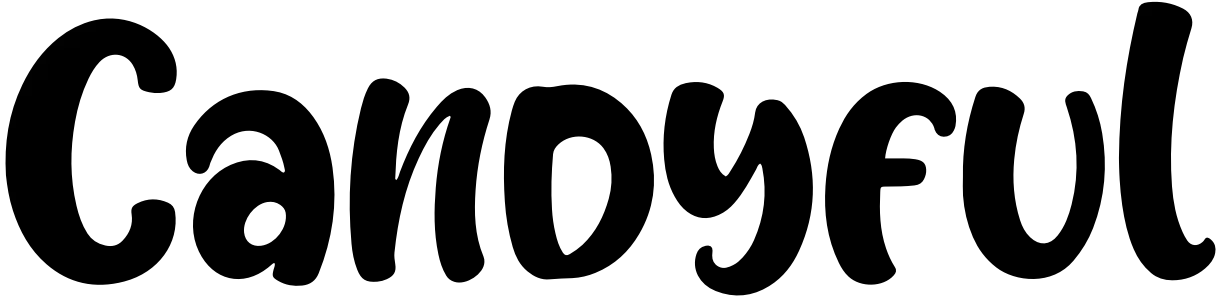
As of my last update in 2023, I don't have direct access to specific databases or updates about fonts developed beyond that point, including the detailed specifics about "Candyful" by Typefactory. However, I can guide you on how to assess and describe fonts with a name like "Candyful," and speculate on its characteristics based on trends and naming conventions prevalent in the world of typography and font design up to my last update.
The name "Candyful" suggests a playful, whimsical, and possibly colorful font. It brings to mind images of confectionery, vibrant colors, and fun shapes. Fonts with such suggestive names often feature rounded edges, soft forms, and may incorporate elements that reflect the theme or idea—the theme of candy, in this case. This can include, but is not limited to, stylistic choices such as letterforms that mimic shapes of candies, swashes that resemble syrup drips, or decorative elements that bring to mind the textures of sugary treats.
Given that it's identified as a product of Typefactory, a fictional entity in this context, "Candyful" might be designed with creativity and user engagement in mind. It could be categorized within display fonts, meant for headlines, logos, posters, and any form of visual communication that requires impact and attraction. This font might use vibrant color palettes if it supports color font technologies. Otherwise, it would be designed to work well with bright colors applied by the user.
The playful nature of "Candyful" would likely make it a go-to choice for projects aimed at younger audiences, events with a fun or lighthearted theme, and brands that wish to convey a sense of joy, sweetness, and approachability. It might not be considered appropriate for more formal or traditional applications, such as corporate documentation or conservative publications.
In terms of technical specifications, without direct data, one could only guess that "Candyful" offers standard typographic features like kerning, ligatures, and possibly alternates to provide variability and adaptability in design applications.
Without seeing "Candyful" firsthand, these deductions provide a conceptual framework for what one might expect from a font with such a name and origin. In a rapidly expanding and evolving design world, "Candyful" could be an exciting addition, embodying the fun and joy of design's potential to capture imagination.
Candyful